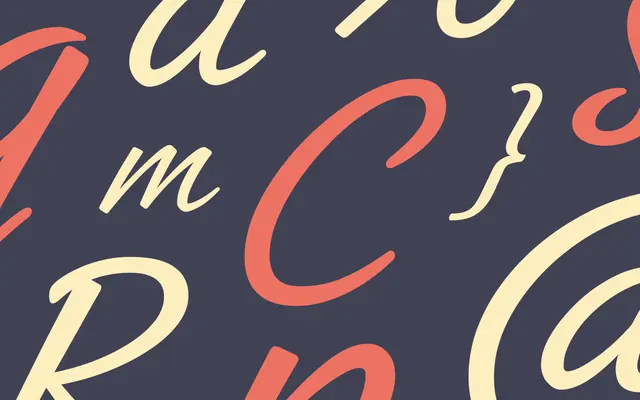
Coquito
Dalton Maag · Pablo Bosch · 2026
Coquito specimen from Dalton Maag
A casual handwritten script by Pablo Bosch inspired by the traditional Spanish coquito cookie, drawn for packaging, headlines and social campaigns.
A handwritten script by Pablo Bosch with fine, rapid strokes and a spontaneous, unpretentious charm. A single Regular weight carries the family, supported by stylistic features for packaging, headlines and social work that want a personal, food-warm voice. Useful when a brand needs a hand on the page without the affectation of formal calligraphy.
Dalton Maag describe Coquito as a dynamic, agile script inspired by the traditional Spanish cookie, defined by fine, rapid strokes and a spontaneous, handwritten charm for packaging, headlines and social campaigns.